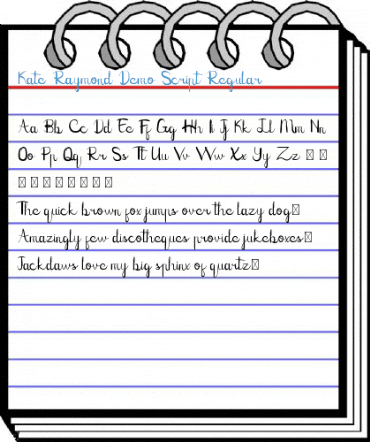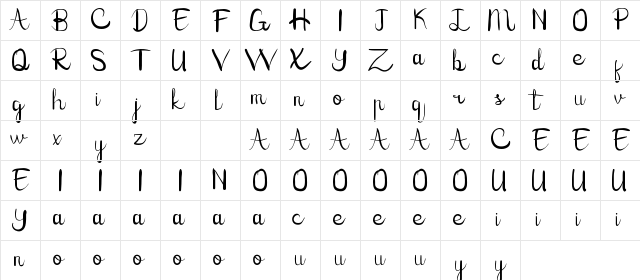
Kate Raymond Demo Script Regular Free Font
Kate Raymond Demo Script Regular
Foundry: Edric Studio
Designer: Muhammad Lukman Fauzi & Suci Anita
Design Context for Kate Raymond Demo Script
Kate Raymond Demo Script flows with the natural rhythm of handwritten lettering, making it ideal for designs that call for warmth and personal expression.
Font Pairing: Combine Kate Raymond Demo Script with a simple geometric sans for maximum contrast - the tension between flowing curves and clean structure is a classic typographic pairing.
Pro Tip: Use Kate Raymond Demo Script for short runs of text - names, titles, or taglines. Extended body copy in script faces tires the eye quickly.